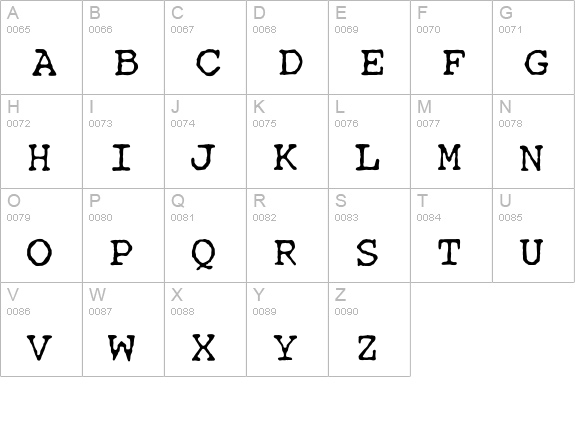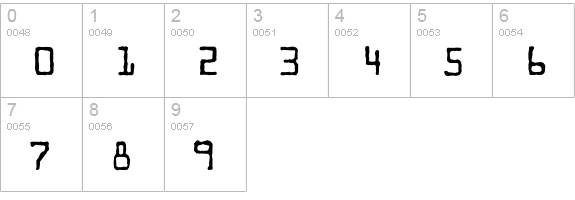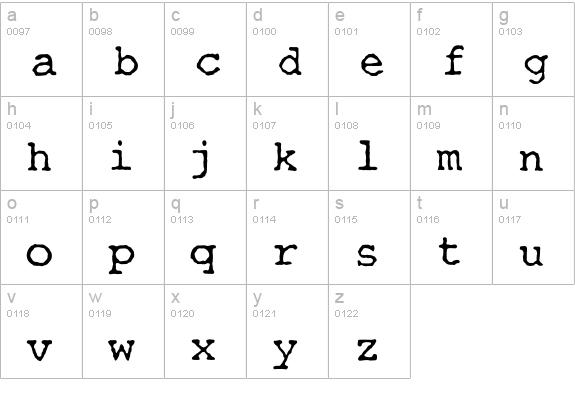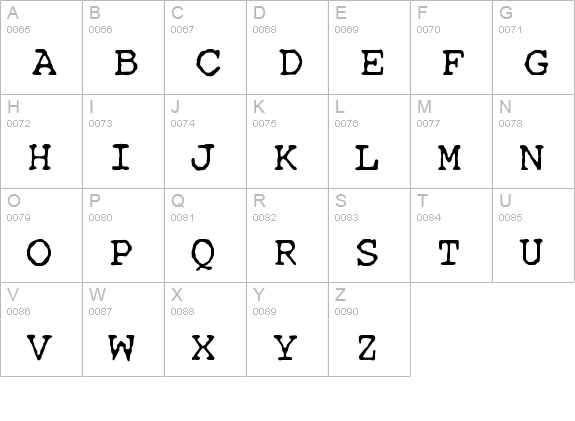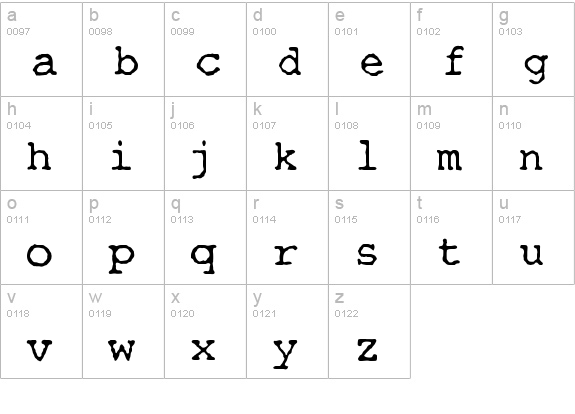
OPTITypewriter-Special Font Details
OPTITypewriter-Special font is a classic and timeless typeface that exudes a sense of nostalgia and authenticity. With its vintage typewriter-inspired design, this font brings a touch of retro charm to any project it is used in. The clean lines and distinct letterforms of OPTITypewriter-Special font make it perfect for adding a touch of character to your designs, whether you're working on a poster, flyer, or branding project. What sets OPTITypewriter-Special font apart is that it is not only stylish and versatile, but also free for anyone to use. That's right - this amazing font is available for download at FontsMarket.com at no cost, making it an accessible and budget-friendly option for designers and creatives of all levels. So why wait? Add a touch of vintage flair to your next project with OPTITypewriter-Special font today!